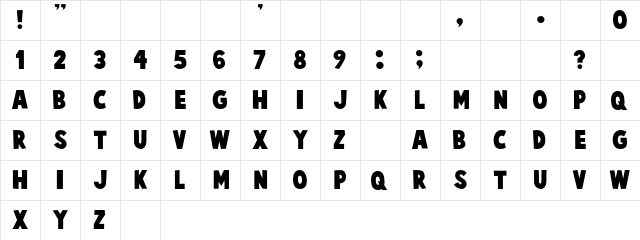
Cartoonist Kooky
Design Context for Cartoonist Typeface
Cartoonist has an approachable, lighthearted character — its loose, expressive forms are well-suited to children's content, casual branding, and fun-first design.
Great for children's books, toy packaging, family event branding, and casual consumer-facing design.
Font Pairing: Pairs well with a rounded or humanist sans for body copy, maintaining the friendly tone without relying on Cartoonist to carry extended reading.
Pro Tip: Avoid using Cartoonist for long passages of text — it works best for headlines, labels, and short calls to action.